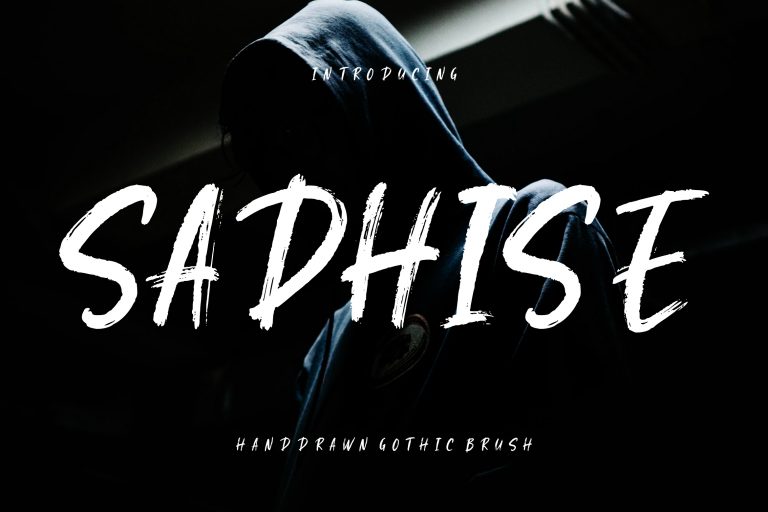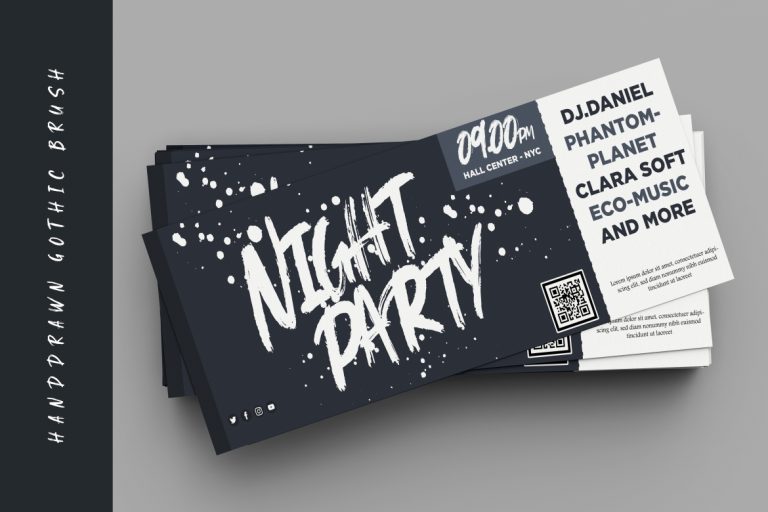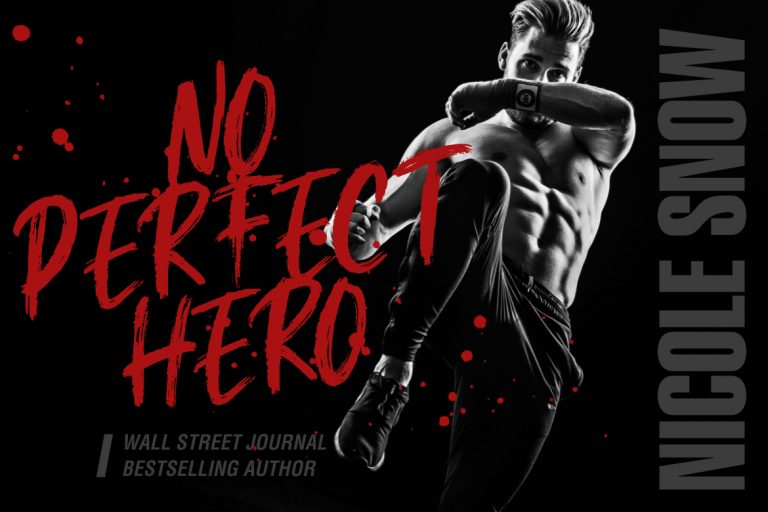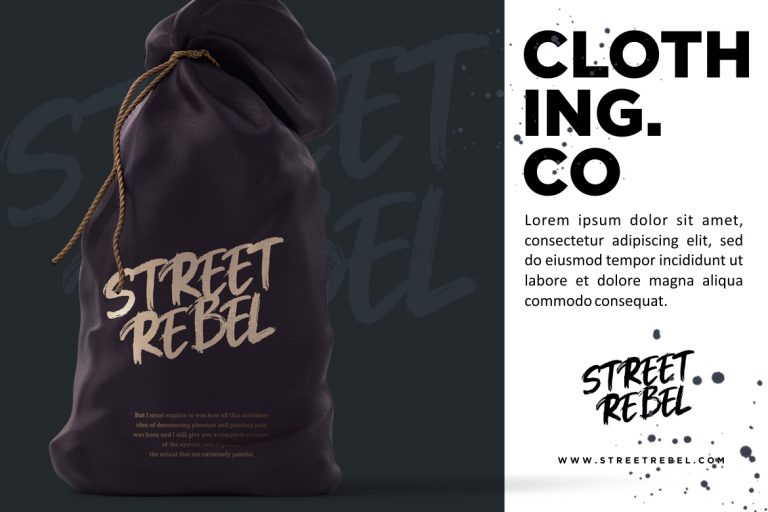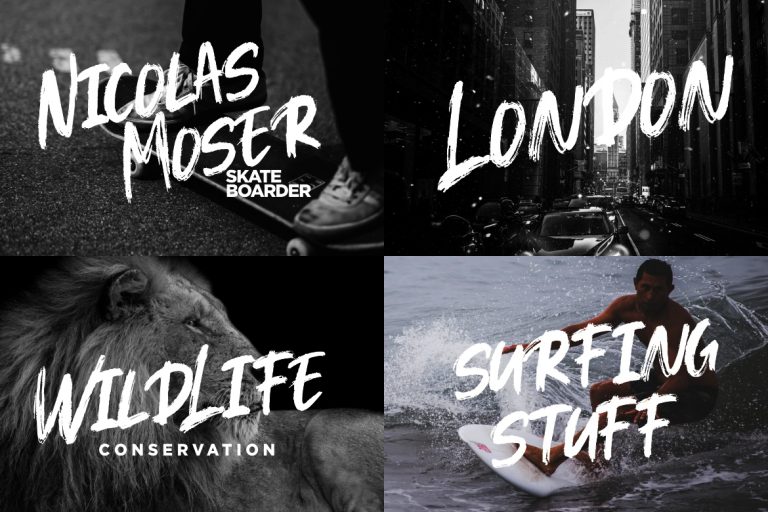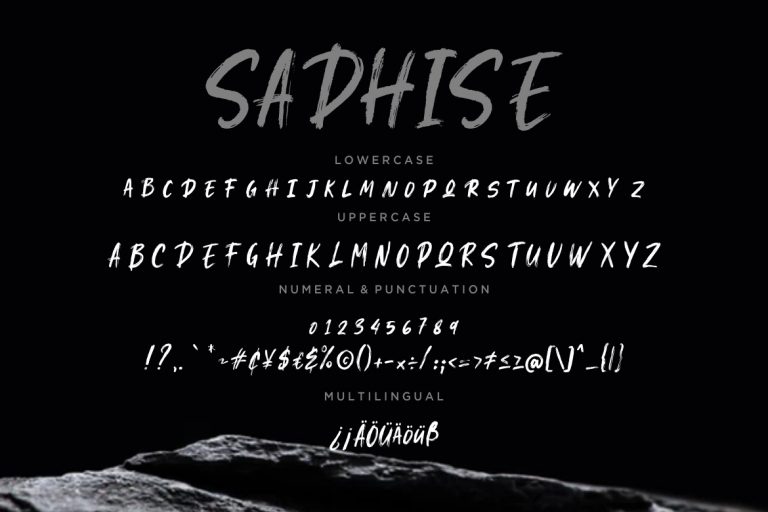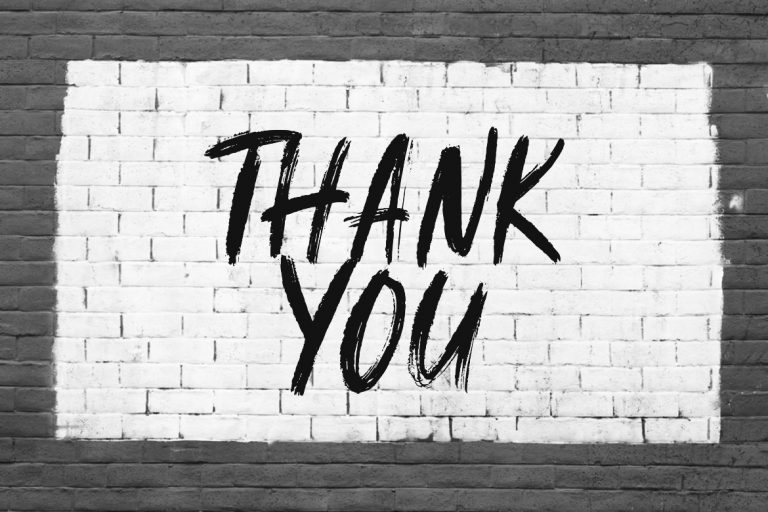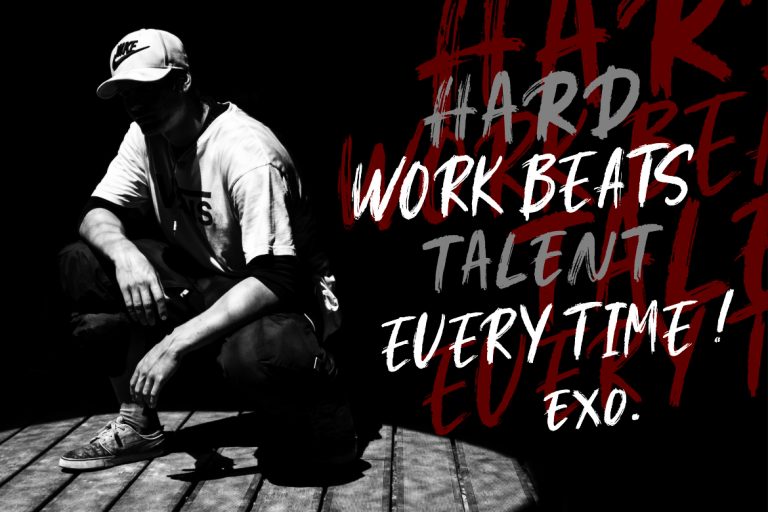
Sadhise is hand-drawn gothic brush font with natural perfect scratch.
Sadhise is perfect for branding projects, logo, wedding designs, social media posts, advertisements, product packaging, product designs, label, photography, watermark, invitation, stationery and any projects that need handwriting taste.
• Fonts include multilingual support for; ä ö ü Ä Ö Ü ß ¿ ¡
Sadhise Handdrawn Gothic Brush